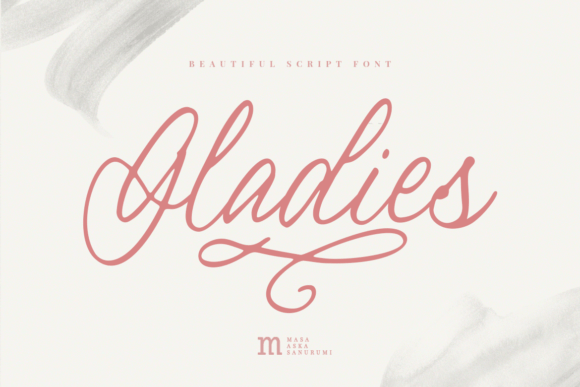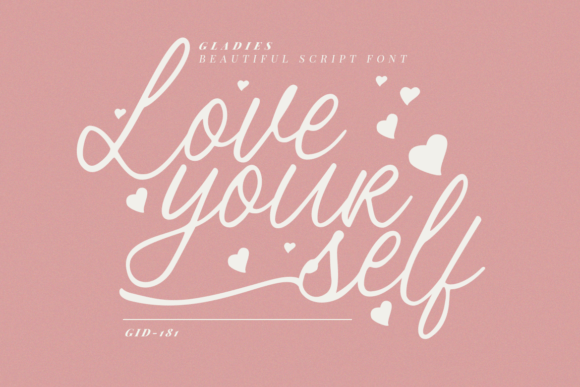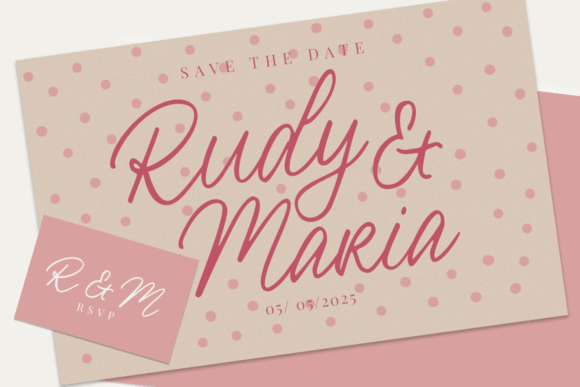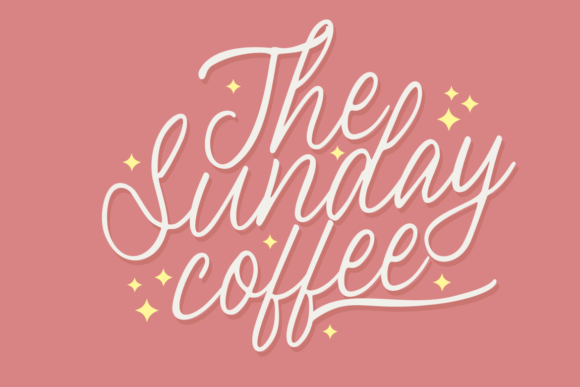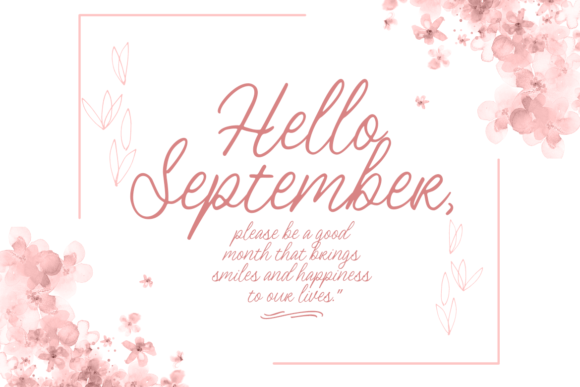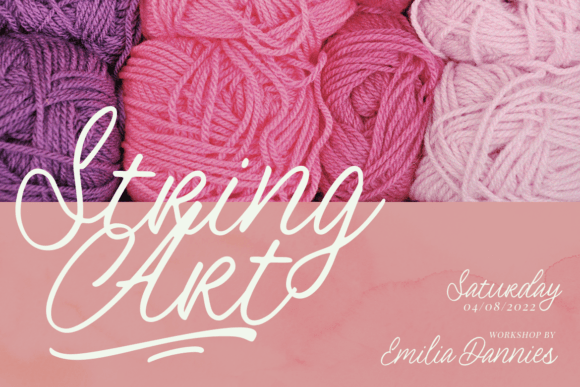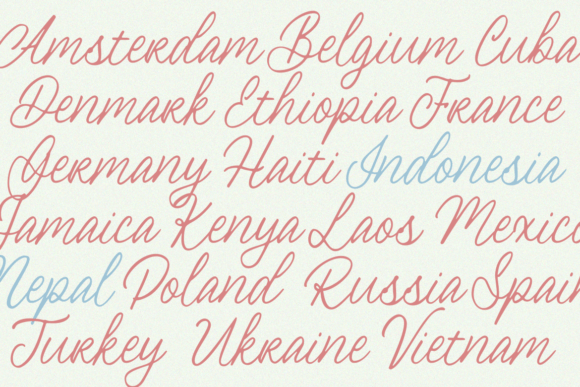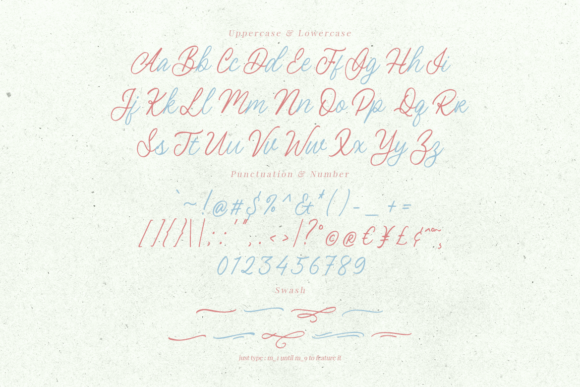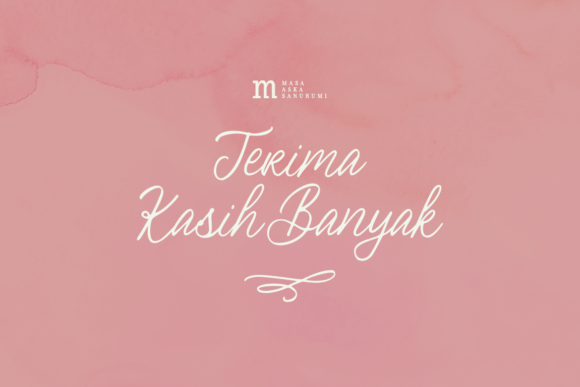
Gladies Font
About Gladies Font
“Gladies” is a stunning and organic script font that stands out with its simplicity and style. Crafted to perfection, this font is a versatile choice suitable for a variety of creative projects, whether you’re designing for Instagram, crafting DIY projects, or seeking a calligraphy script with a touch of elegance.
The beauty of “Gladies” lies in its organic and flowing letterforms, creating a sense of natural grace. The simplicity of the font adds to its versatility, making it adaptable to a wide range of design contexts. Whether you’re working on social media graphics, invitations, or any creative endeavor, “Gladies” has the ability to transform your ideas into true pieces of art.
The script style of this font contributes to its timeless and classic appeal, making it suitable for both contemporary and traditional design themes. Its versatility allows it to seamlessly integrate into various projects, adding a touch of sophistication and charm.
For those looking to enhance their creative projects with a font that exudes beauty and simplicity, “Gladies” is an excellent choice. Its carefully crafted design and organic aesthetic make it a standout option for anyone seeking a script font that can elevate their designs to a new level of artistry.